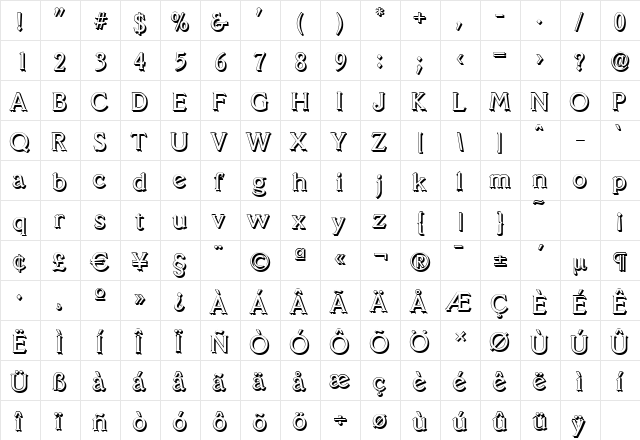
VeracruzShadow Regular
Design Context for VeracruzShadow Typeface
VeracruzShadow is built around its visual character rather than neutral utility — its distinctive forms are designed to make an impression at display sizes.
Font Pairing: Pair with a clean neutral sans-serif for body copy to let VeracruzShadow's character lead without overwhelming the composition.
Pro Tip: Treat VeracruzShadow as the centrepiece of your typographic hierarchy. One strong heading set in a decorative face can carry an entire layout.